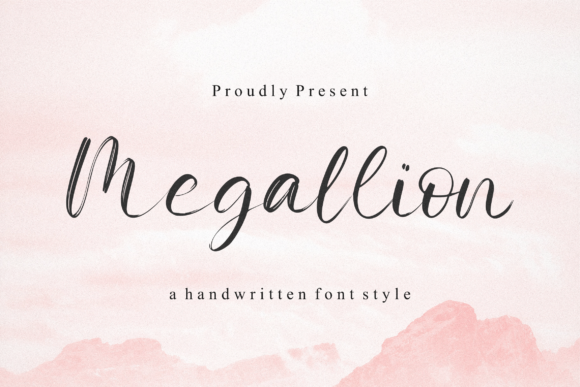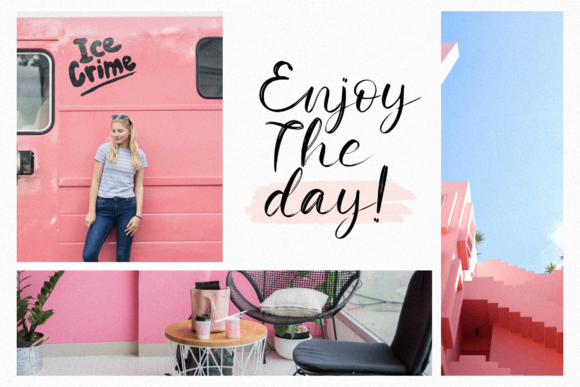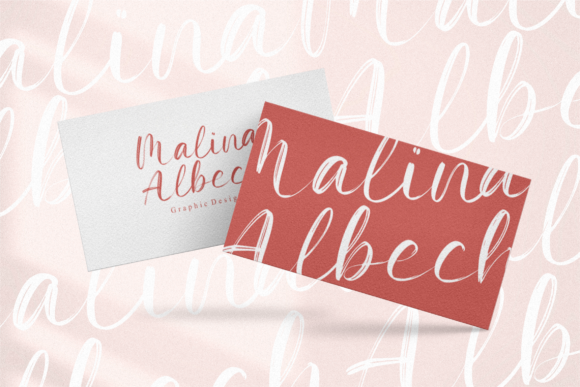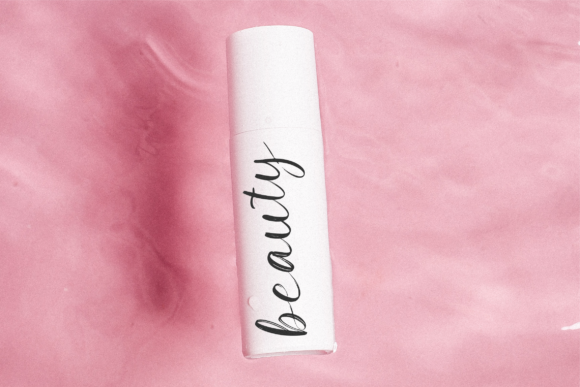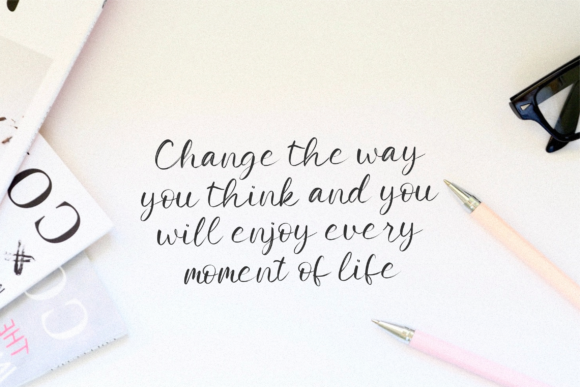
Megallion Font
About Megallion Font
Megallion is an enchanting handwritten font. This versatile script font has a wide spectrum of applications ranging from greeting cards to headlines and is guaranteed to add a romantic feel to your next project.